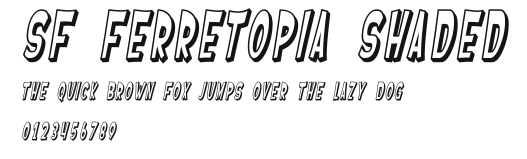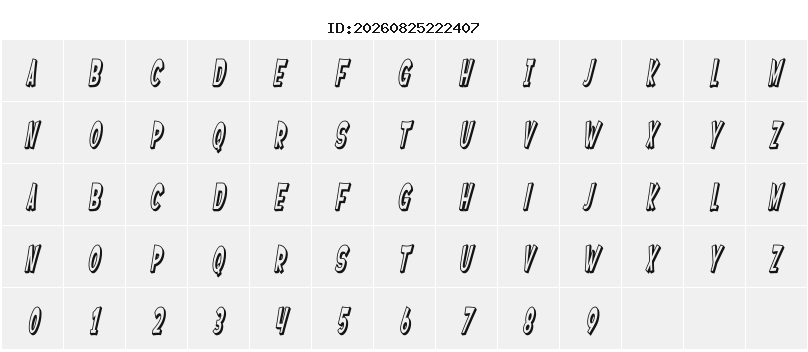
SF Ferretopia Shaded Preview
• Font Name: SF Ferretopia Shaded
• Font Style: Oblique
• Font ID: ShyFontsTypeFoundry: SF Ferretopia Shaded Oblique: 2000
• Full Font Name: SF Ferretopia Shaded Oblique
• PostScript Name: SFFerretopiaShaded-Oblique
• Character Count: 204
• Designer: ShyFonts Type Foundry
• Description: SF Ferretopia Shaded Oblique is a trademark of the ShyFonts Type Foundry.
About SF Ferretopia Shaded.ttf
SF Ferretopia Shaded.ttf is a modern, elegant sans-serif font designed for ultimate readability and visual harmony. Perfect for branding, headlines, web design, and print materials.